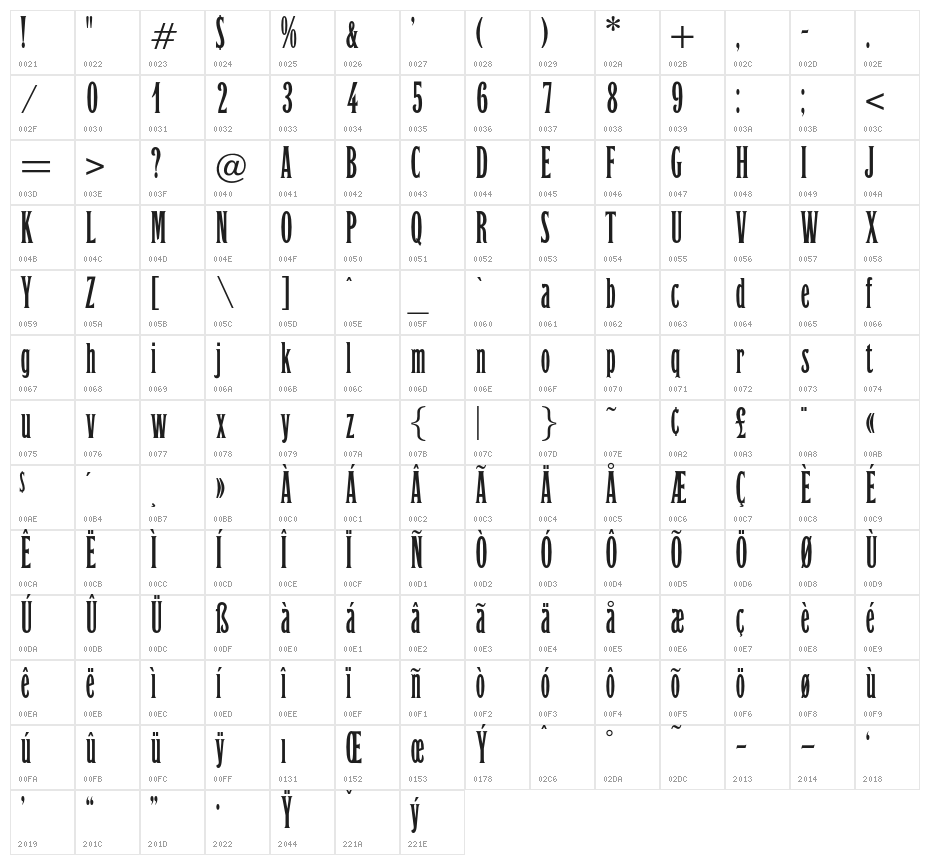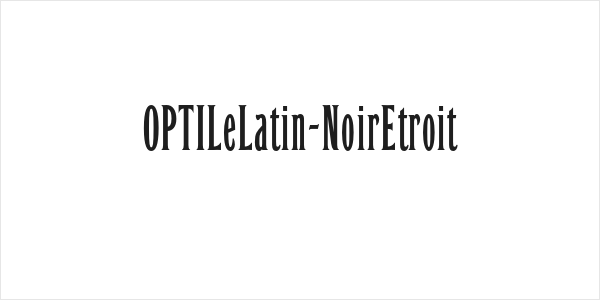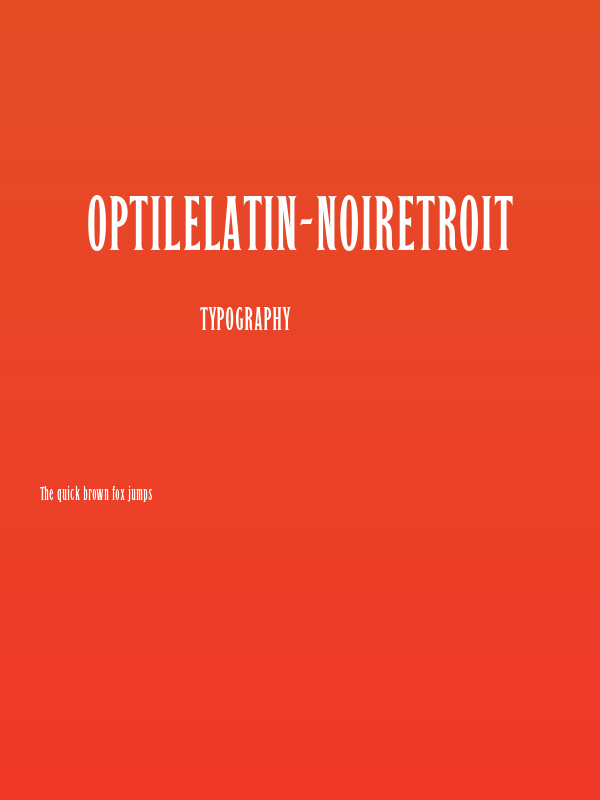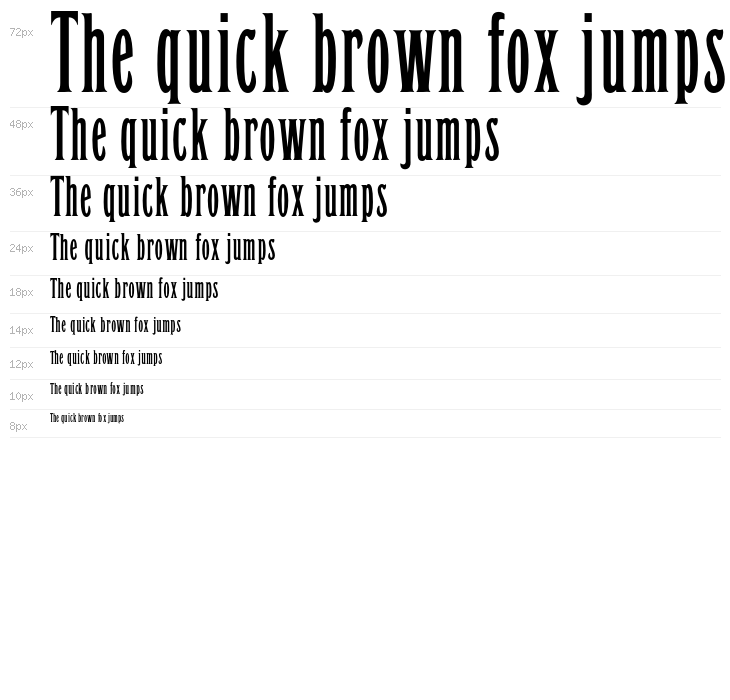
OPTILeLatin-NoirEtroit Font
OPTILeLatin-NoirEtroit Description
This font features a bold and condensed style with high contrast between thick and thin strokes. The uppercase letters are tall and narrow, giving a striking and impactful appearance. The lowercase letters maintain the condensed form, ensuring consistency across the typeface. The numerals are similarly styled, with a uniform height that aligns with the uppercase letters. Special characters are designed to match the overall aesthetic, providing a cohesive look. The font's distinctive style makes it suitable for attention-grabbing designs.
| Proposed Projects | Ideal for posters, headlines, and branding materials that require a bold statement. |